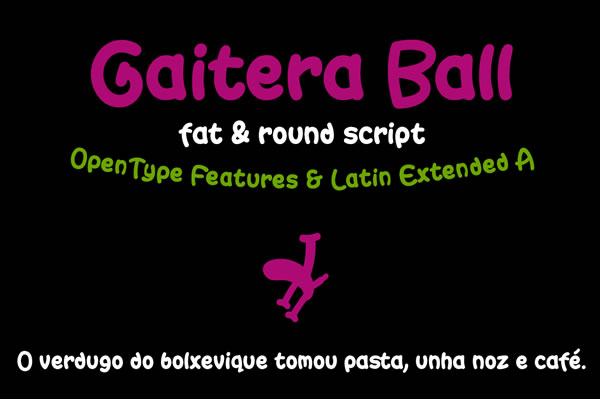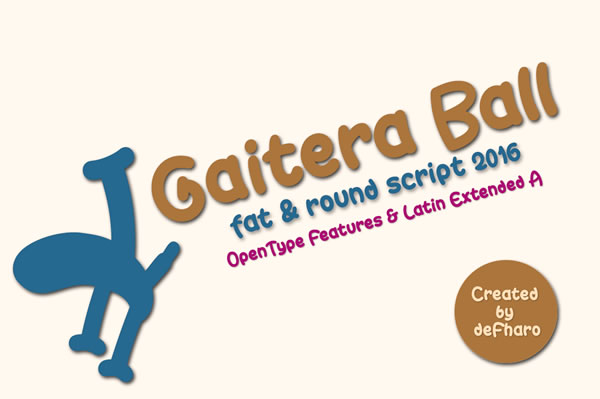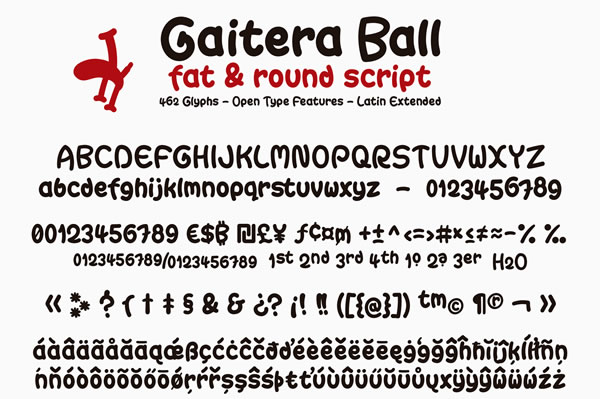
Fonts play a crucial role in design, and the Gaitera Ball Font font is a typeface that brings both character and versatility to any project. Whether you’re working on a branding project, a website, or a print design, the Gaitera Ball Font font offers a unique style that can elevate your work.
Gaitera Ball is a handwritten typography made with a very big spherical tip pen.
Itβs friendly looking and itβs perfect for designing eye-catching titles of manuscript style The font has short ascenders and descenders and proportional capital letters that gives it a very compact appearance.
The Gaitera Ball Font font is more than just a typeface β it’s a design tool that helps you communicate your message with style and clarity. Its unique character set and versatile design make it suitable for a wide range of applications, from elegant invitations to bold headlines.
With its carefully crafted letterforms and balanced proportions, the Gaitera Ball Font font ensures readability and visual appeal across all mediums.
The Gaitera Ball Font font stands out with its unique design, exceptional readability, and versatility across various design applications.